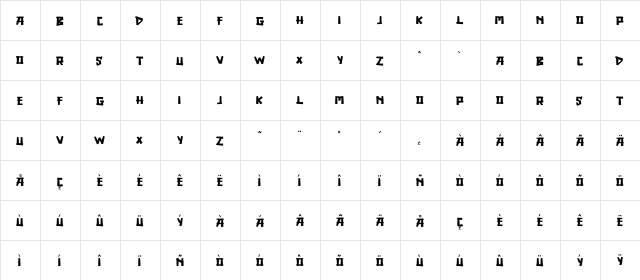
DINOCRAFT Regular
Design Context for DINOCRAFT Typeface
DINOCRAFT is a composed and adaptable typeface that performs quietly and consistently across a wide range of design contexts.